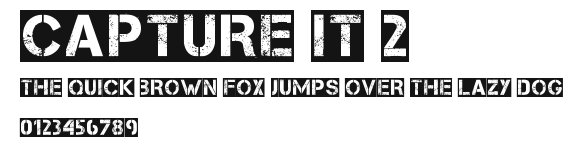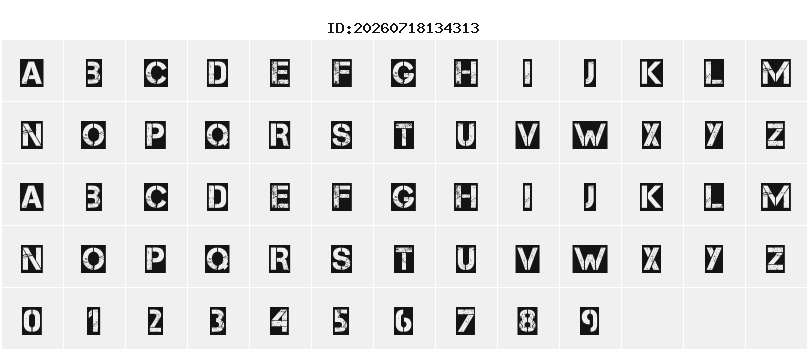
• Font Name: Capture it 2
• Full Font Name: Capture it 2
About Capture it 2.ttf
Capture it 2.ttf is a modern, elegant sans-serif font designed for ultimate readability and visual harmony. Perfect for branding, headlines, web design, and print materials.